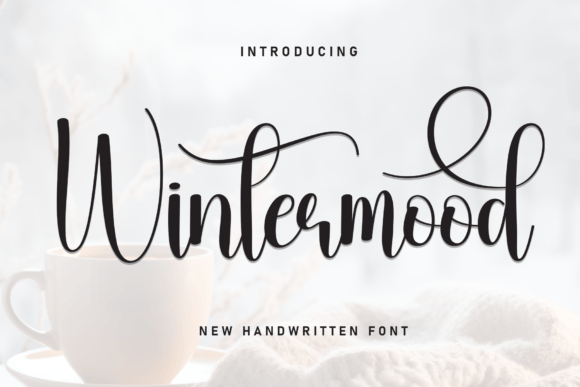
Introducing Wintermood Font, the perfect script font for all your interior design projects! Crafted by the talented team at Misterletter.co, this flowing handwritten font exudes elegance and charm, making it an ideal choice for those seeking to captivate their audience.
With Wintermood Font, you'll instantly fall in love with its unique and timeless style. Its graceful strokes and delicate curves effortlessly convey a sense of sophistication and creativity, making it the ultimate tool to elevate your designs to new heights.
Whether you're working on a website, a blog, or creating marketing materials for your interior design business, Wintermood Font will bring your vision to life. Its versatility knows no bounds, allowing you to create stunning logos, eye-catching headlines, and elegant invitations that will leave a lasting impression on your clients and customers.
This font is more than just a tool; it's a statement. With Wintermood Font, you have the power to evoke emotions and create a strong connection with your audience. Its flowing nature adds a touch of warmth and intimacy to your designs, making them feel personal and inviting.
Imagine the impact Wintermood Font can have on your website. Picture your visitors being instantly drawn to its captivating style, navigating effortlessly through your beautifully designed pages. With this font, you can transform your online presence into a visual masterpiece that will leave a lasting impression on your potential clients.
Don't settle for ordinary fonts that fail to make a statement. Wintermood Font is here to help you stand out from the crowd and make a bold impression. Its intricate details and impeccable craftsmanship will set your designs apart, ensuring they are remembered long after they are seen.